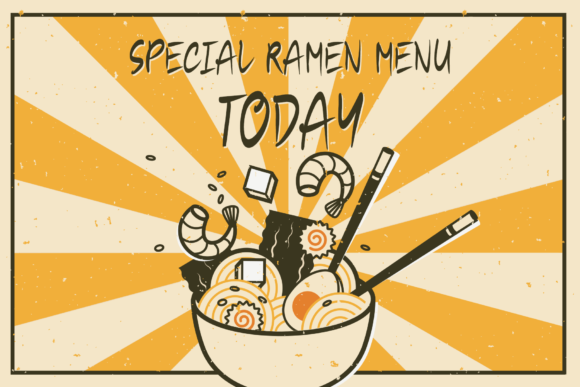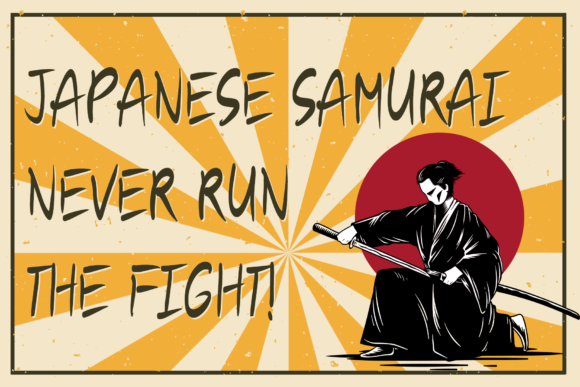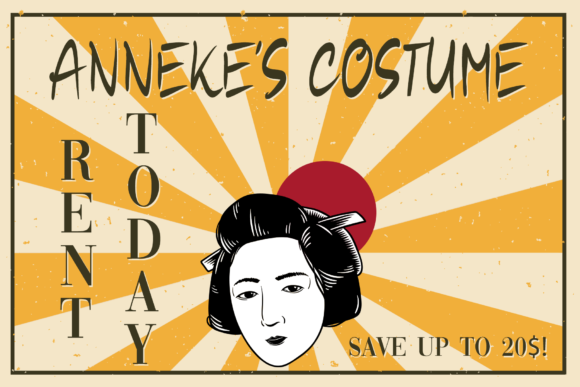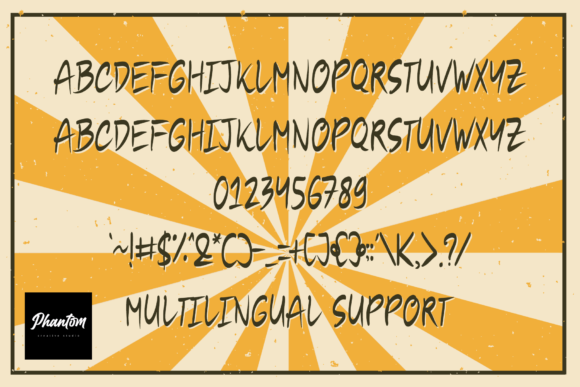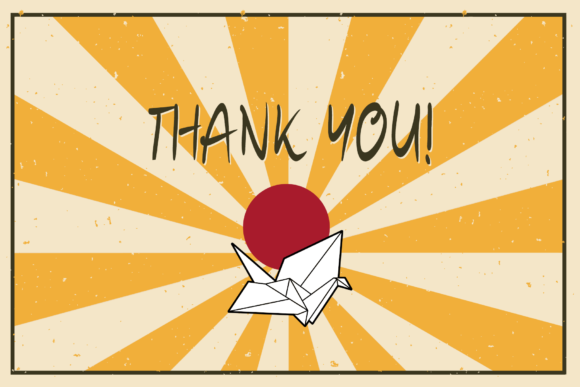
Introduction to Japan Day Font
Japan Day is a unique display font, created by using a brush pen.
| 👤 Author | Phantom Creative Studio |
It’s clean and a little bit quirky, this font is the perfect fit for all of your logos, branding, social media, and crafty DIY projects .
Key Features of Japan Day Font
Why Choose Japan Day Font?
Japan Day Font offers exceptional quality and versatility, making it a valuable addition to your design toolkit. Whether you’re creating for personal projects or commercial use, Japan Day Font delivers professional results.